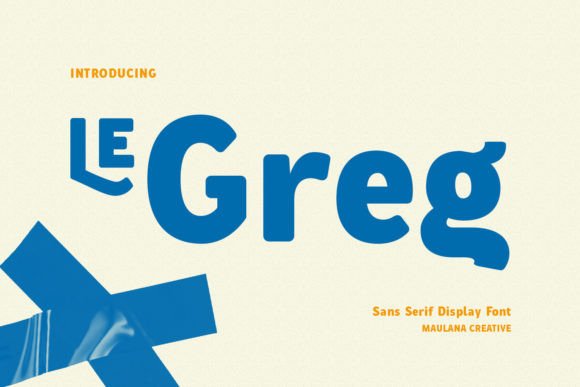
Say hello to Le Greg - the font that's as captivating as the silver screen! This modern sans serif is tailored for TV displays, ensuring your designs shine brighter than a Hollywood premiere.
Imagine your creations gracing the screens of millions, leaving an indelible mark on their minds. Le Greg's sleek lines and clean aesthetic will elevate your designs to cinematic heights, making them the talk of the town.
This minimalist marvel is a blank canvas for your creativity. Let its purity inspire your posters, book covers, and social media posts. Its versatility extends to invitations, logos, and countless other projects - only your imagination sets the limits.
With Le Greg, you'll weave a spellbinding narrative with every design. Its elegant curves and sharp edges will cast a captivating magic, leaving your audience spellbound.
Embrace Le Greg and let your creations take center stage - on screens, in print, and beyond. Its timeless appeal will ensure your designs continue to captivate for years to come.